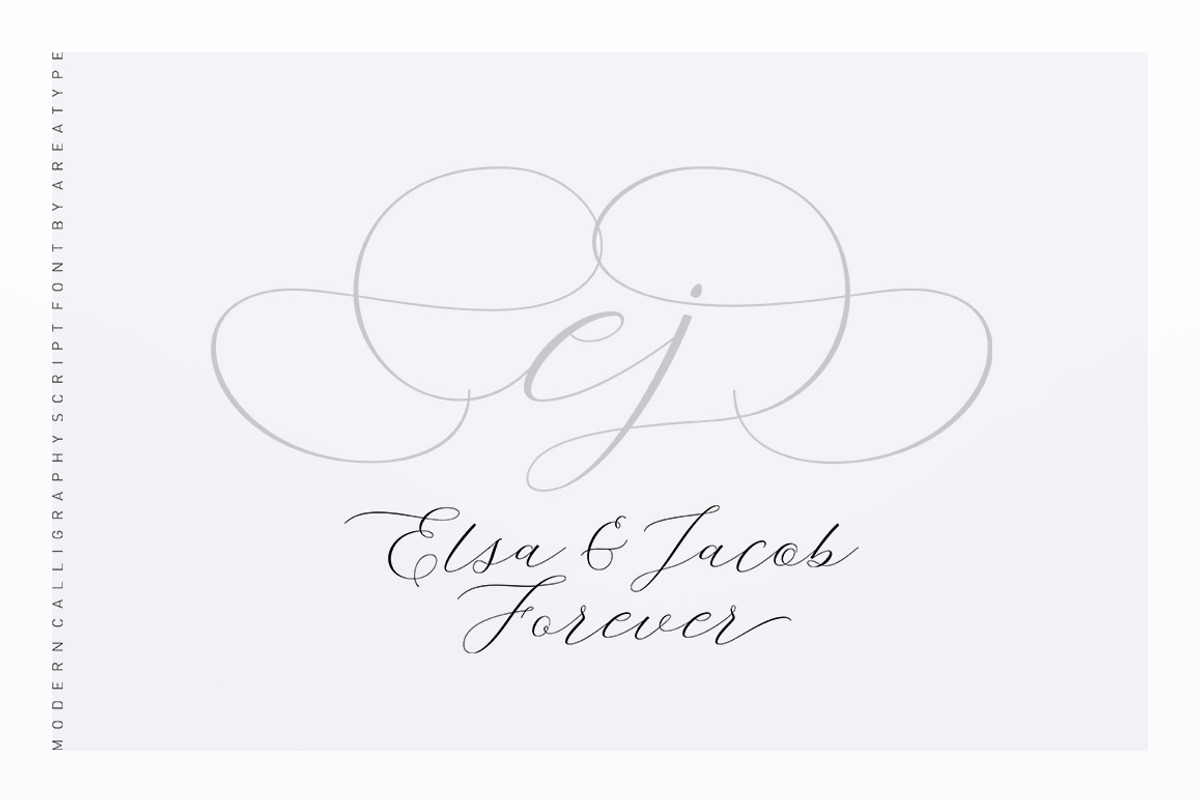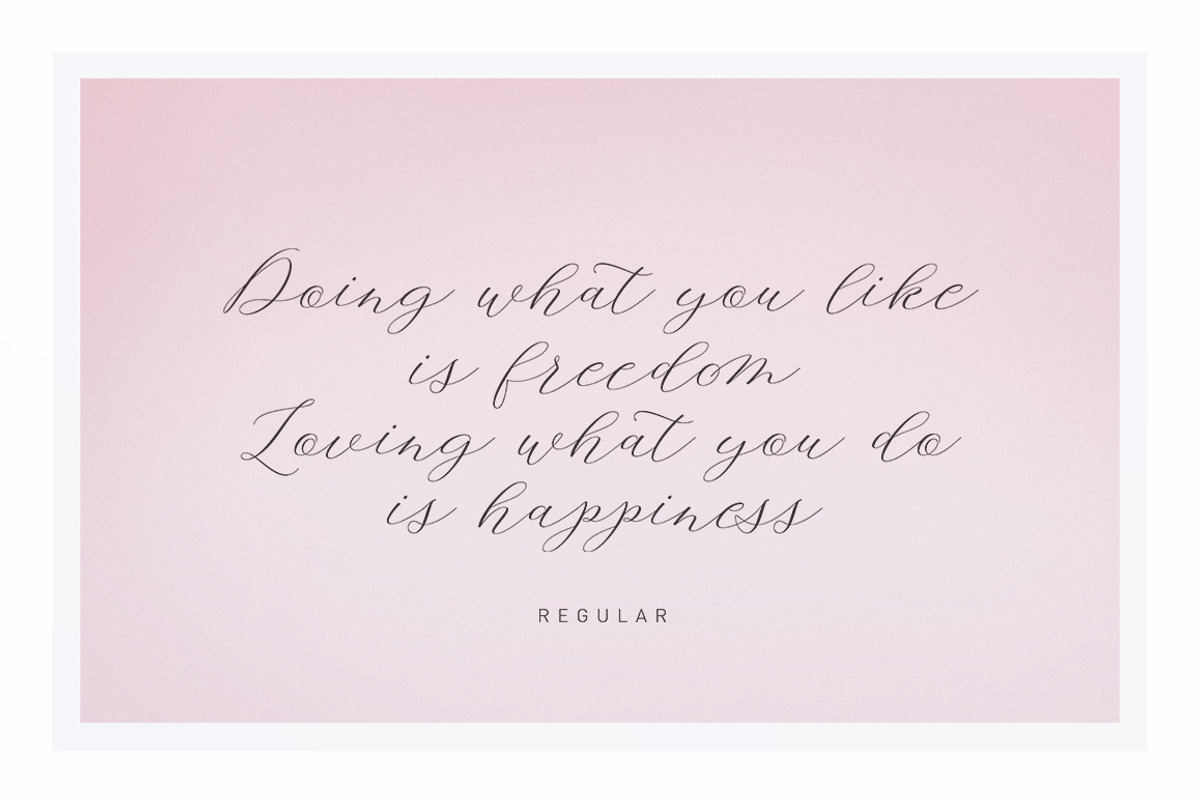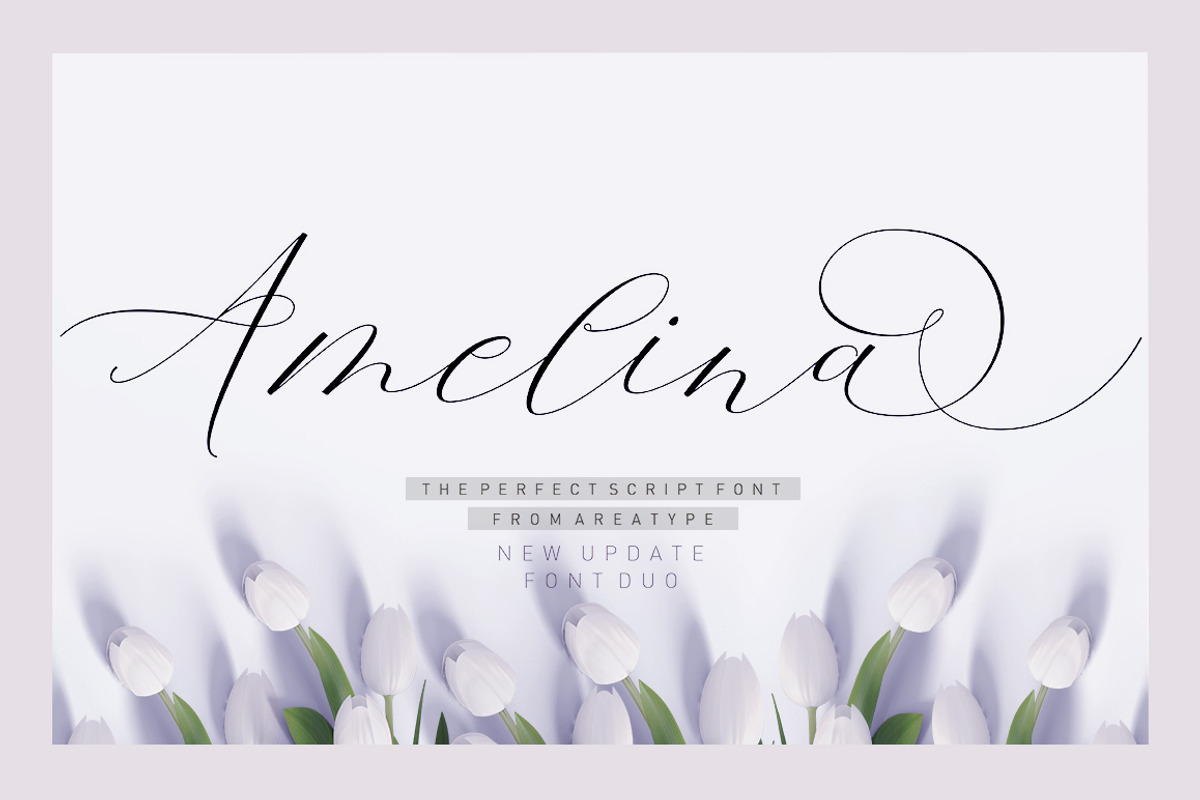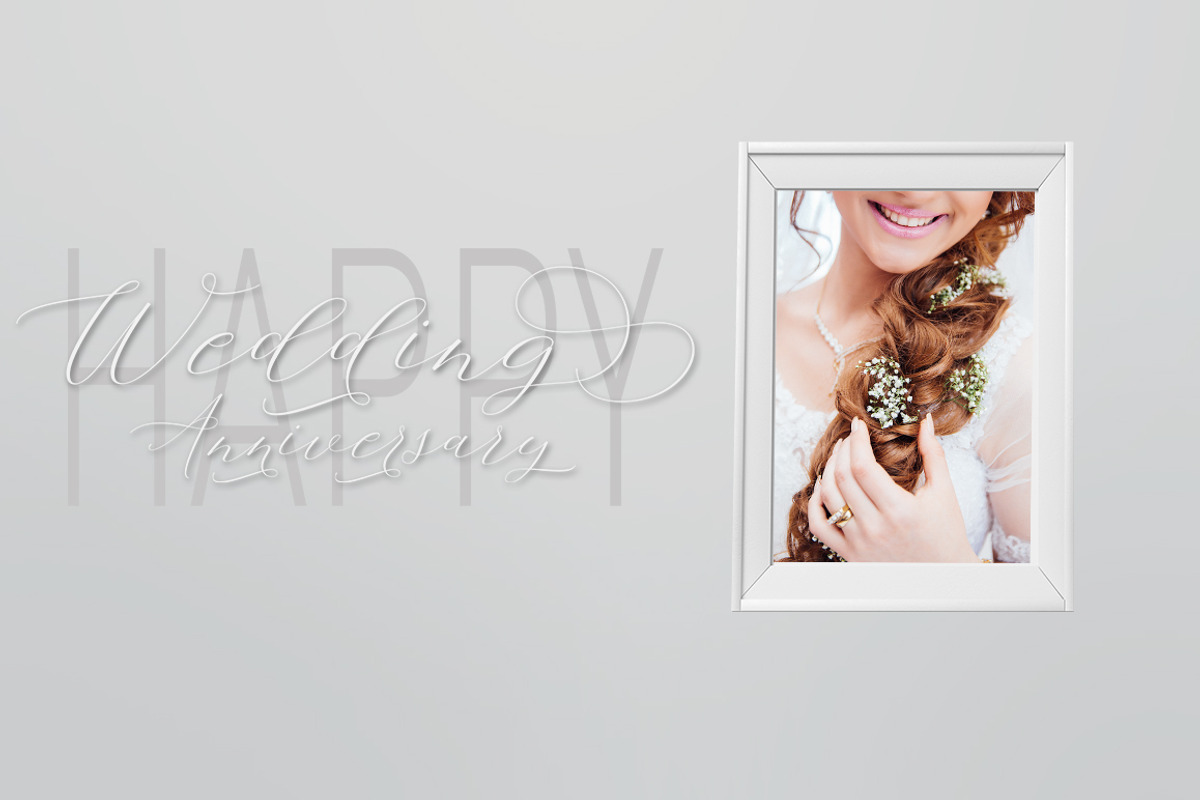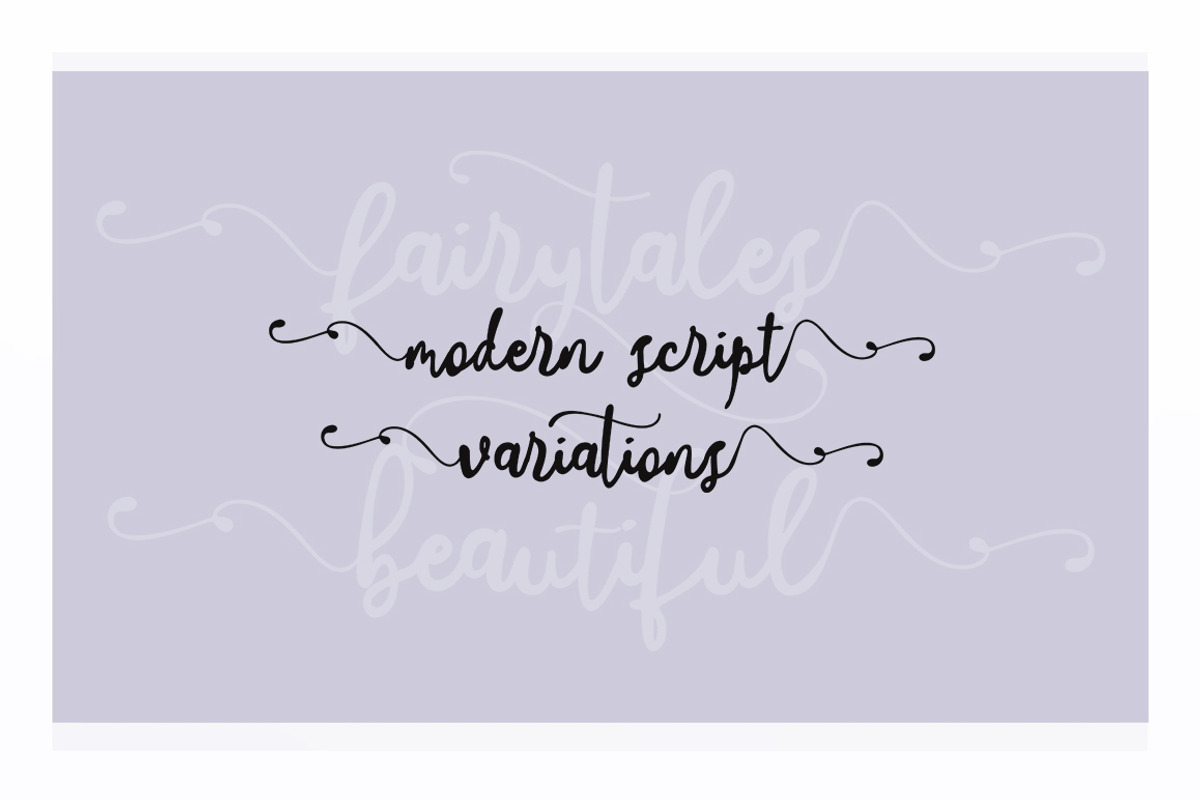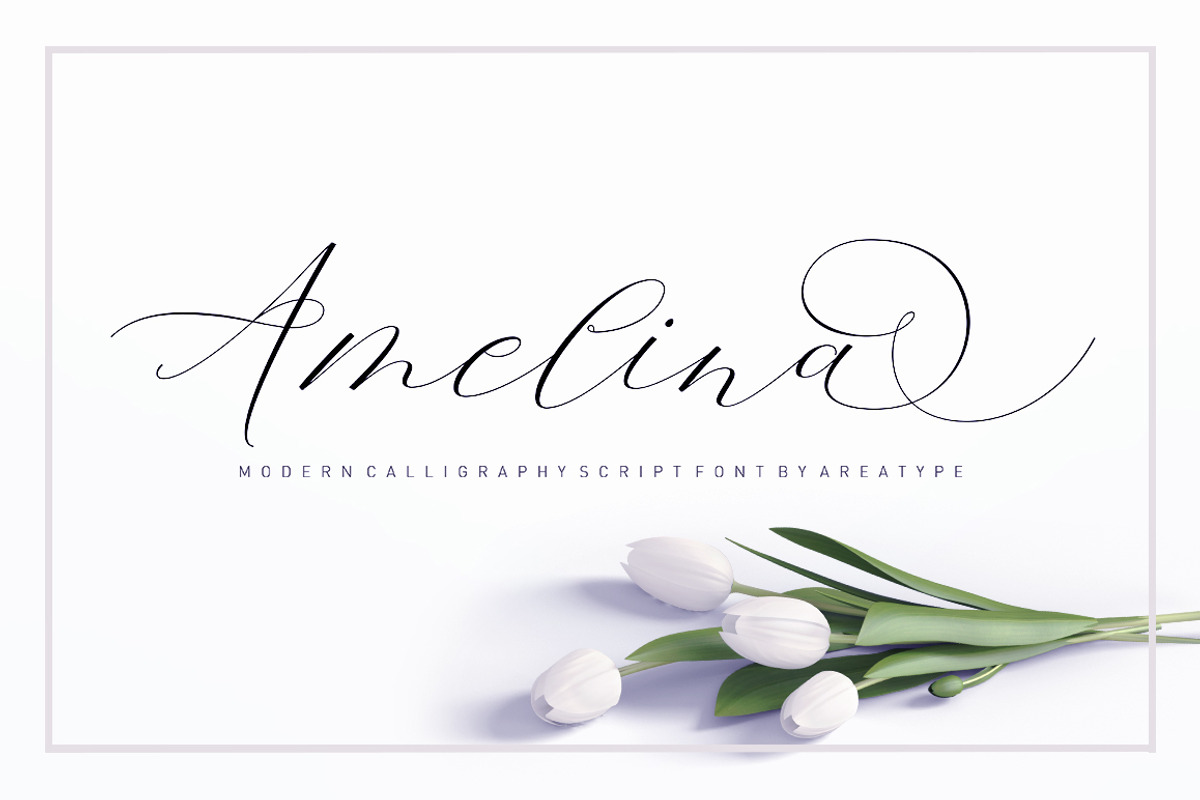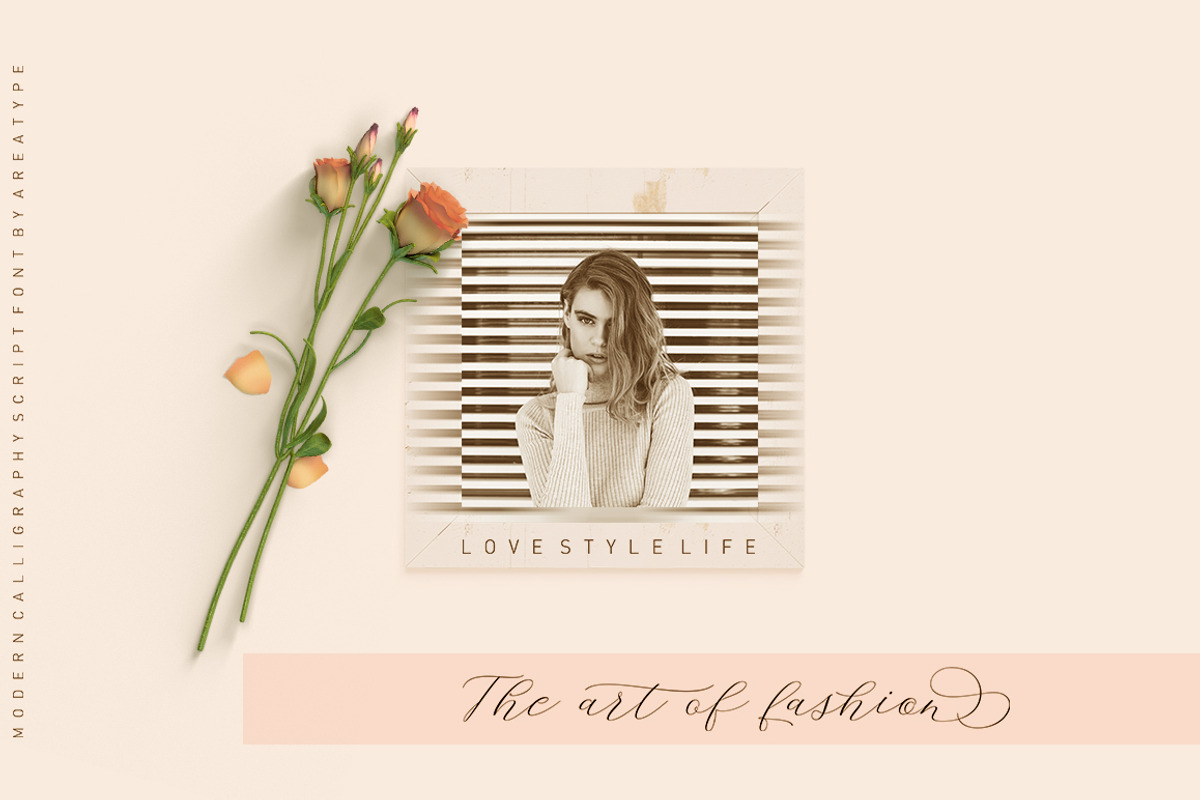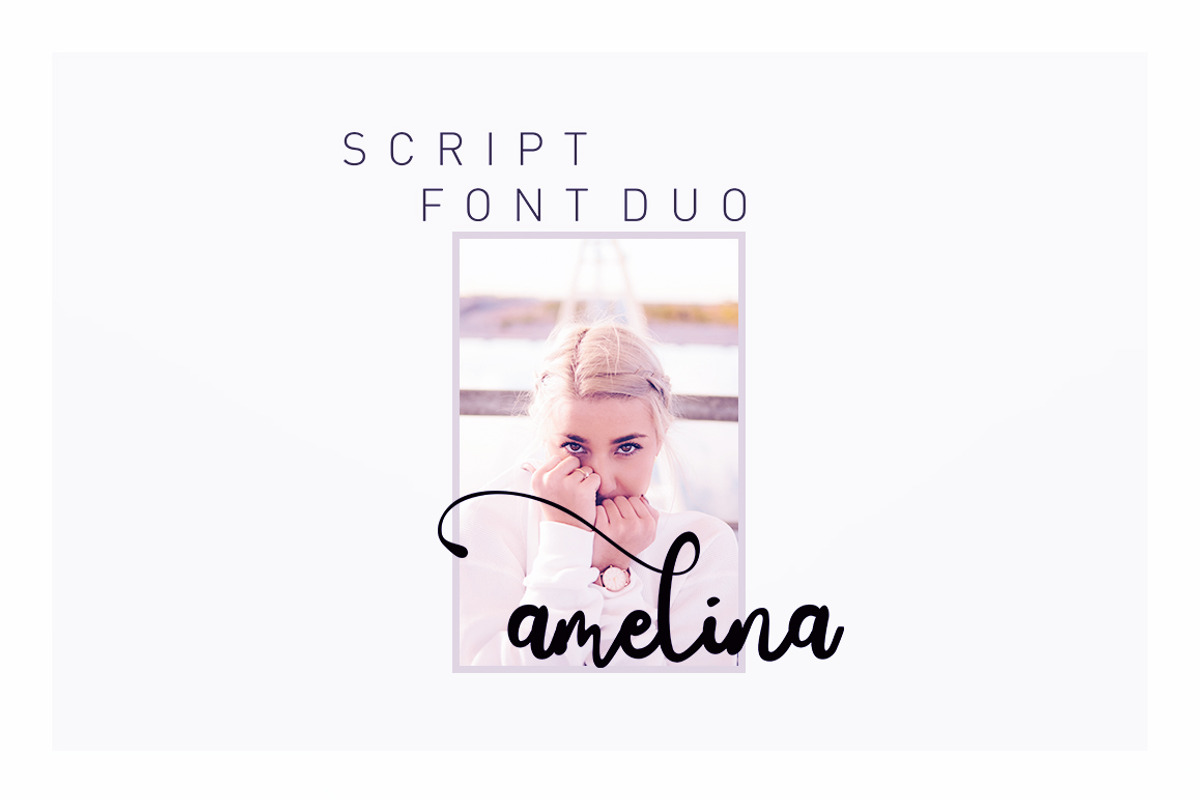
Amelina Script New Update Font Duo
Amelina Script Font Duo is a modern calligraphy typeface, casual and pretty with swashes almost 545 glyphs. Can be used for many purposes. such as title, signature, logo, wedding invitations, letterhead, signage, labels, newsletters, posters, badges, etc. Amelina Script features Open type, including the initial and terminal letters, alternates, ligatures and International support for most Western languages included.